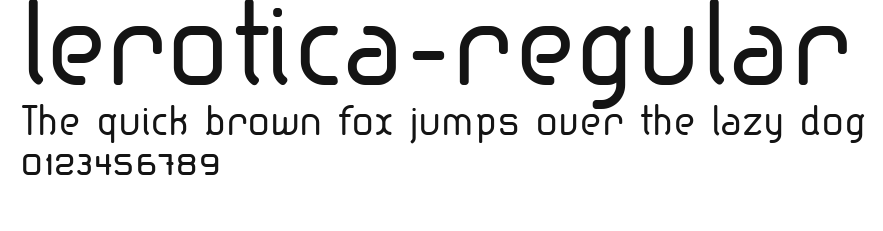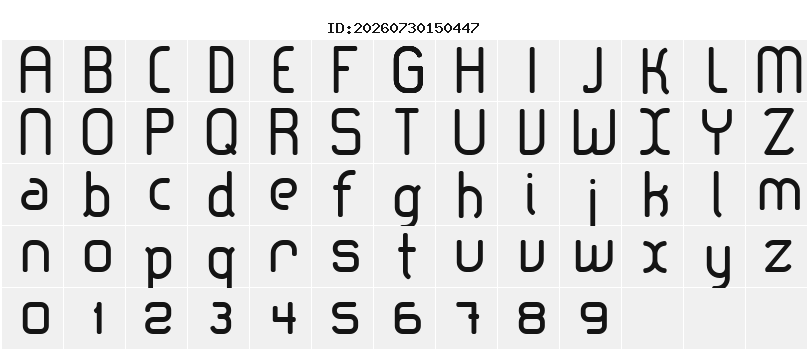
lerotica-regular Preview
• Font Name: lerotica-regular
• Full Font Name: lerotica-regular
• PostScript Name: lerotica-regular
• Designer: deFharo
• Manufacturer: deFharo
About lerotica-regular.ttf
lerotica-regular.ttf is a modern, elegant sans-serif font designed for ultimate readability and visual harmony. Perfect for branding, headlines, web design, and print materials.